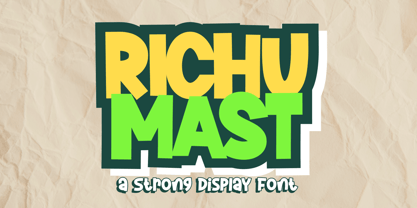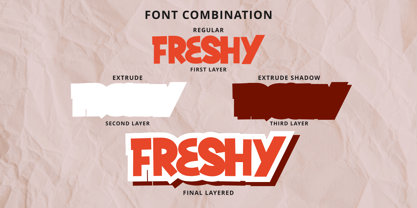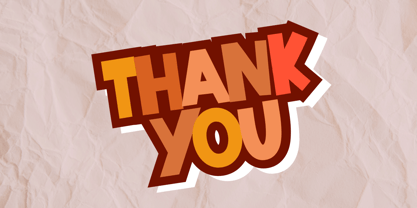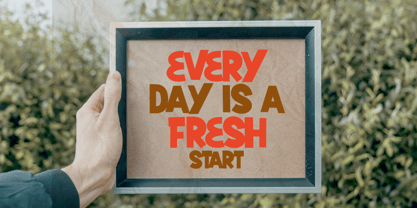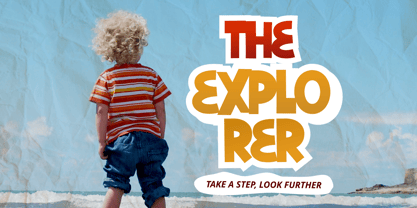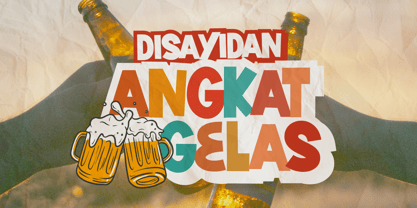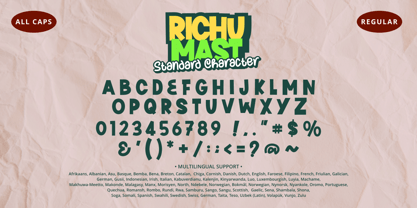
Richu Mast
by Mabhal Studio
The Richu Mast Font Family was designed by Abdullah Mabhal and published by Mabhal Studio. Richu Mast contains 3 styles and family package options. More about this family
Richu Mast is a bold and playful display font featuring a chunky, layered aesthetic. This all-caps typeface is designed for maximum impact, making it perfect for headlines, posters, children's products, and creative branding. Its fun, comic-inspired shapes add energy to logos, packaging, and social media content. With its strong visual weight and multilingual support, it provides a versatile solution for any project needing a quirky and friendly touch.
Designers: Abdullah Mabhal
Foundry: Mabhal Studio